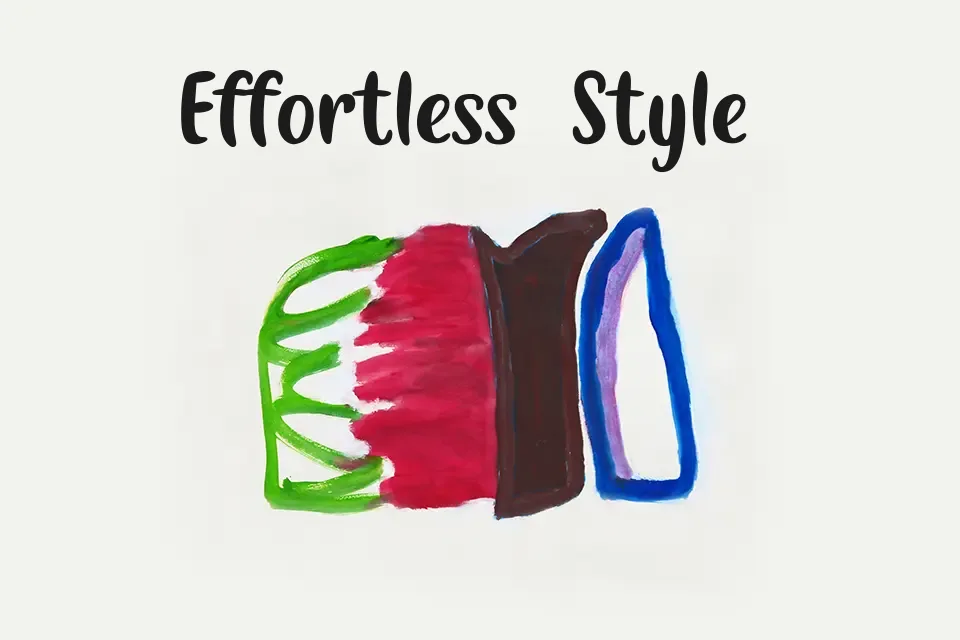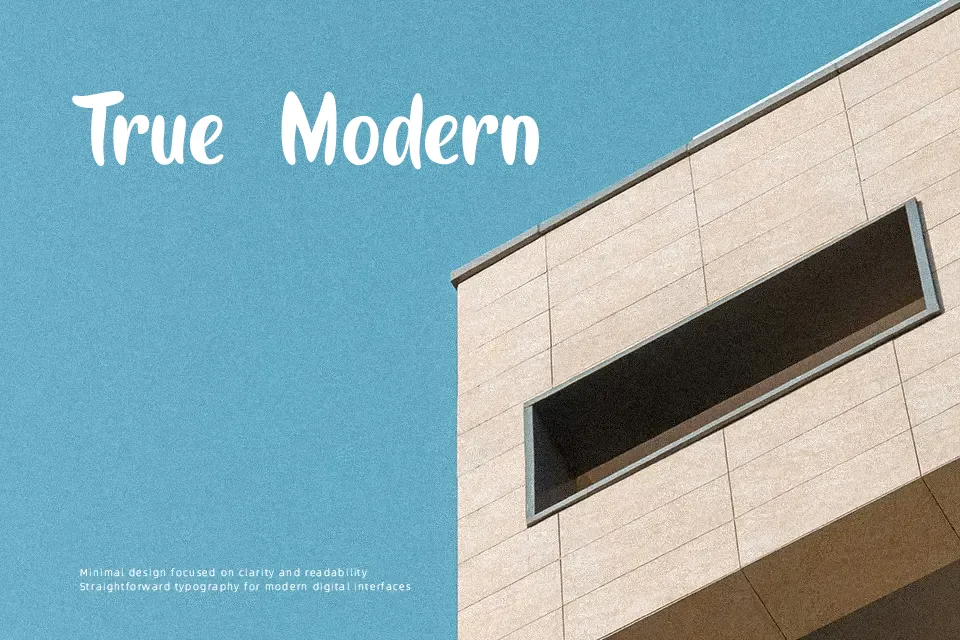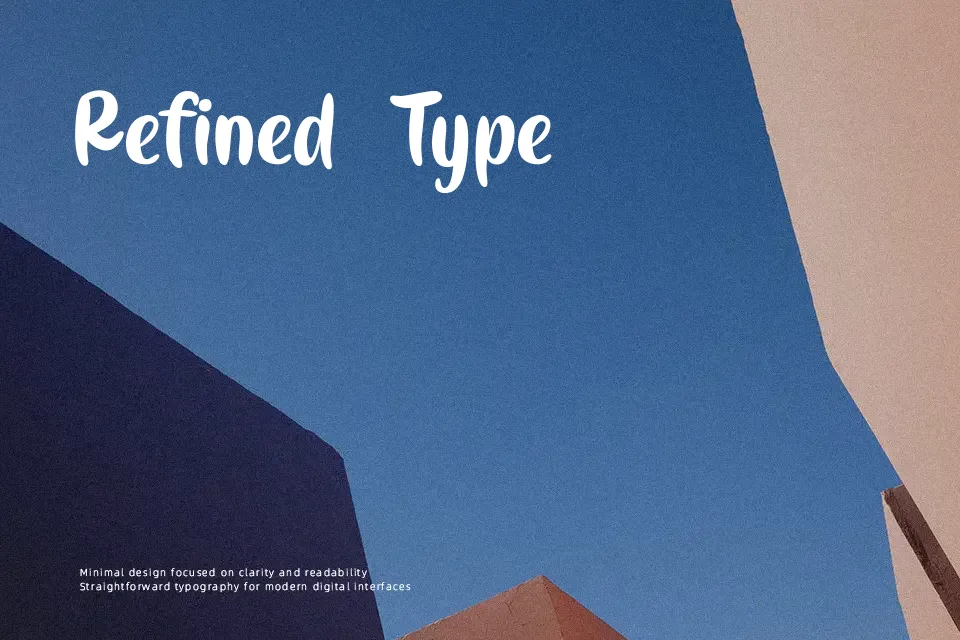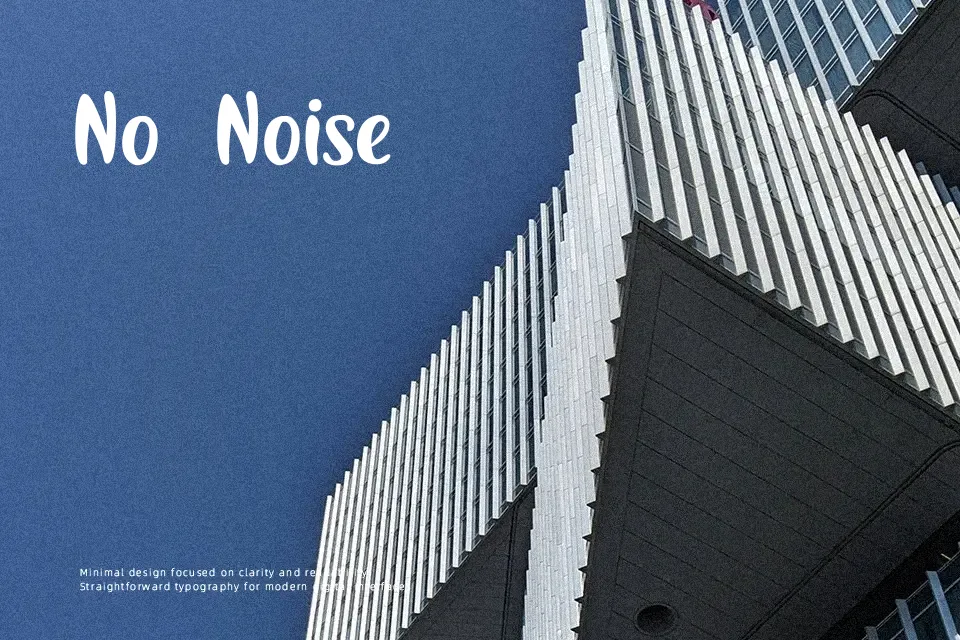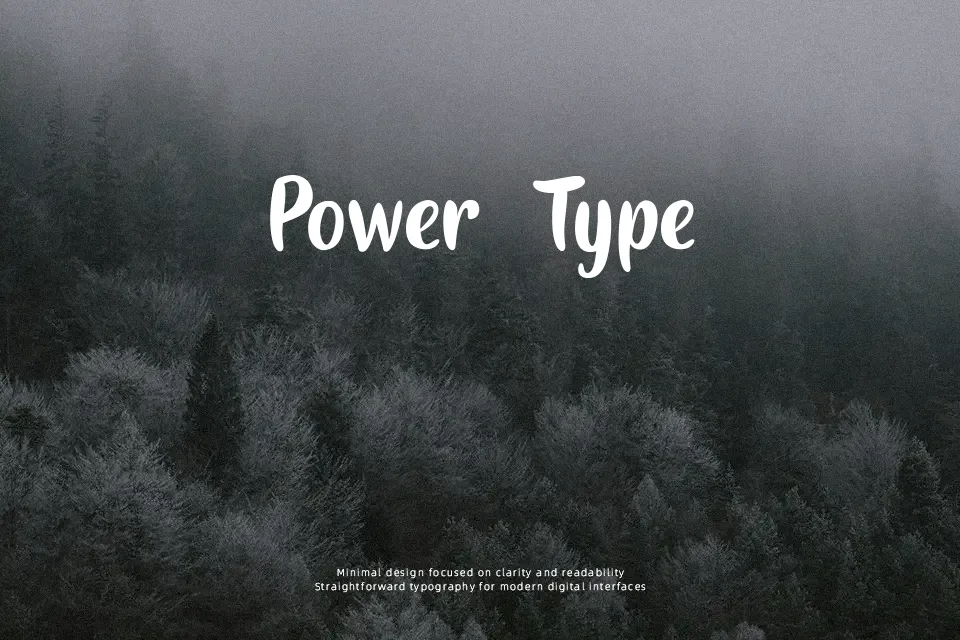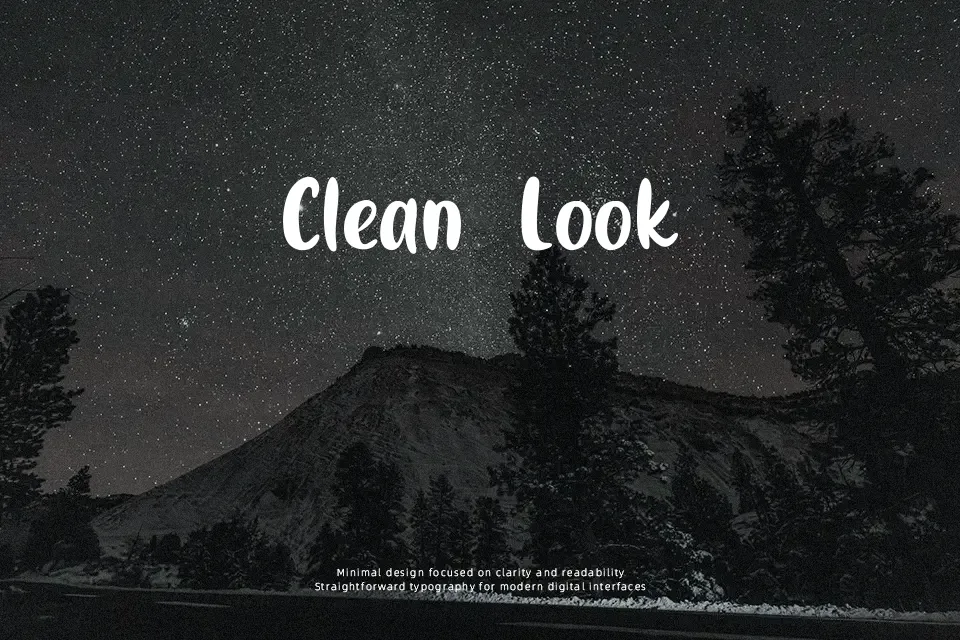
Pumpkin Pancakes Font
Designed by Kurnia Setyadi
The structural design of Pumpkin Pancakes Font features thick, rounded letterforms that immediately establish a casual and approachable aesthetic. The heavy stroke weight and tight visual rhythm give the characters a bouncy, energetic feel. The spacing helps maintain clarity in larger headlines, ensuring the playful structure remains highly legible in display applications. This typeface performs exceptionally well for autumn festival posters, children’s book covers, and engaging casual food packaging. However, the dense forms reduce comfort during extended reading, making it unsuitable for long paragraphs. The decorative weight becomes less effective at smaller text sizes, so designers should reserve this design exclusively for bold, attention-grabbing focal points.
autumn festival posters
casual food packaging
playful social media graphics
children’s book covers
Perfect for headline, kids, and packaging, with a cute and cartoon style.